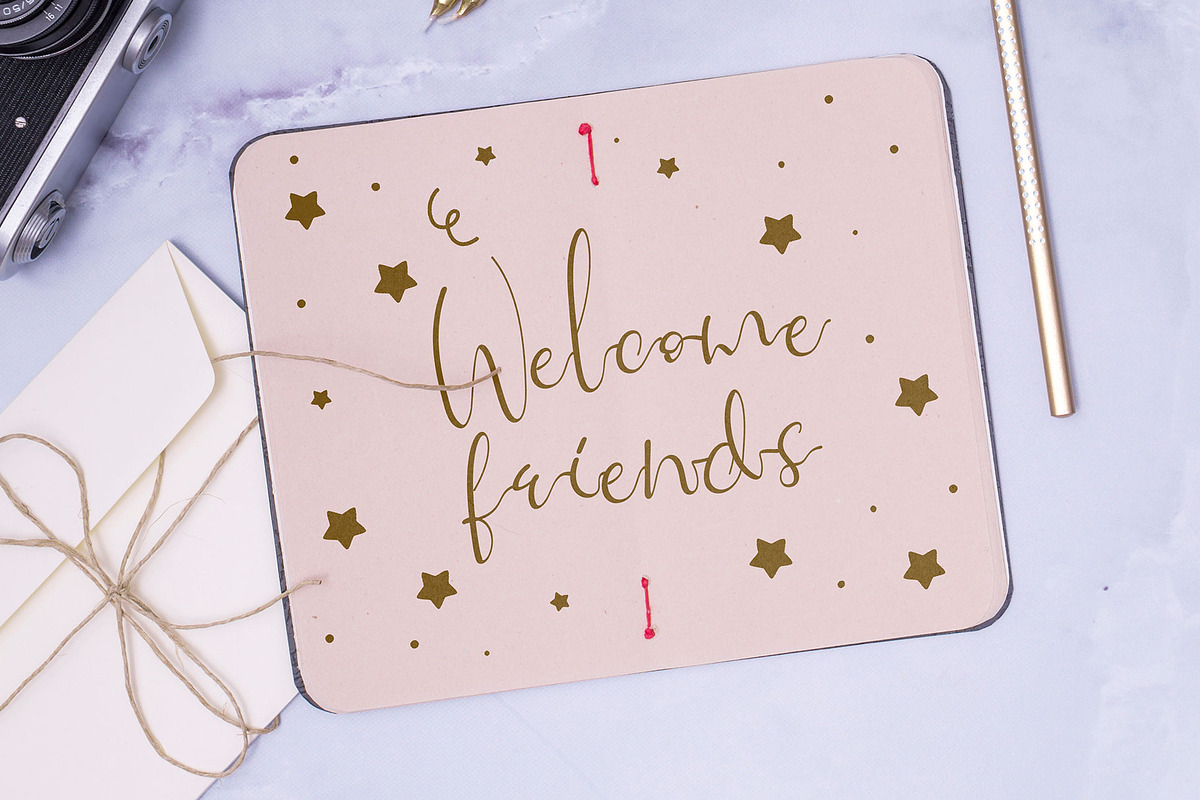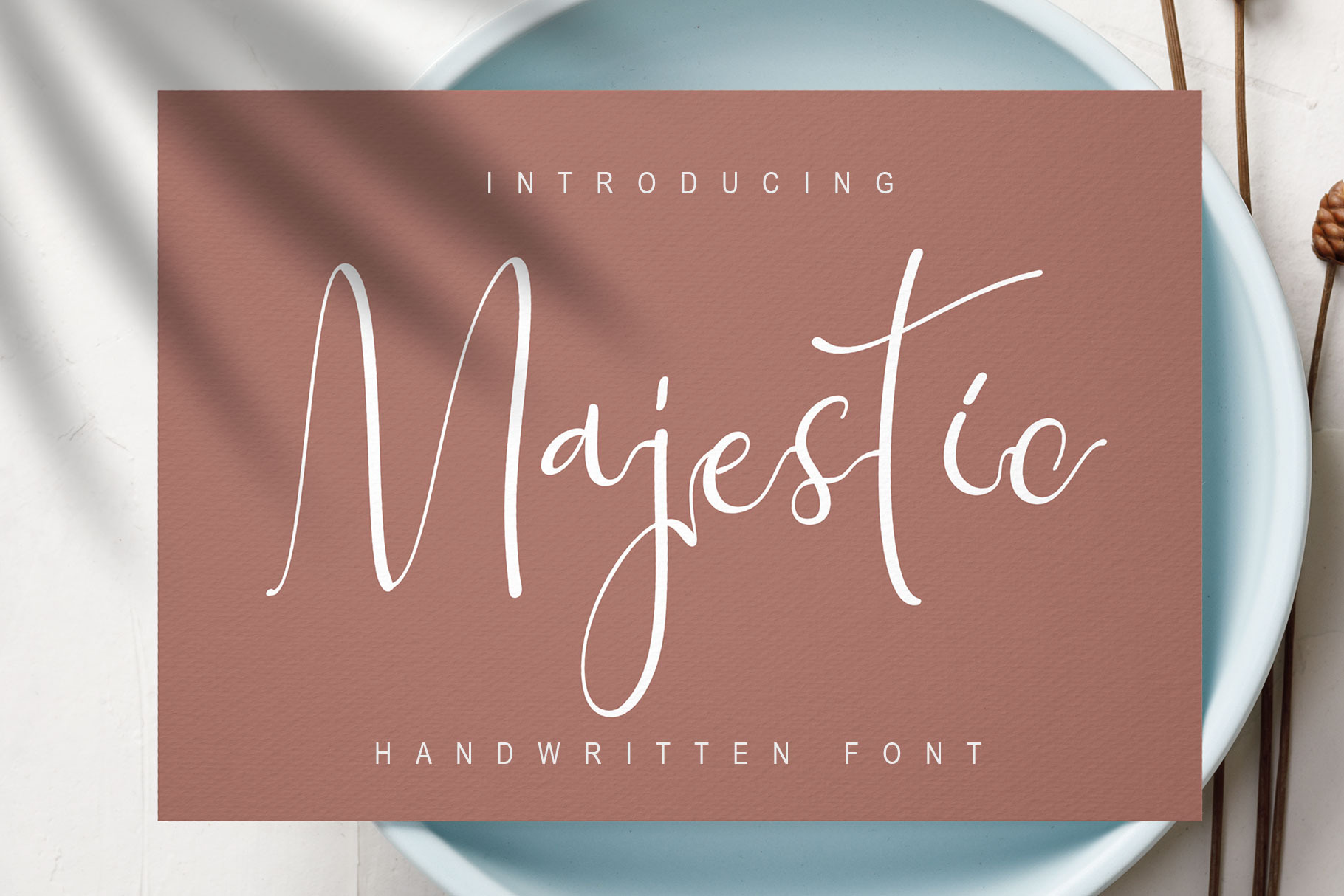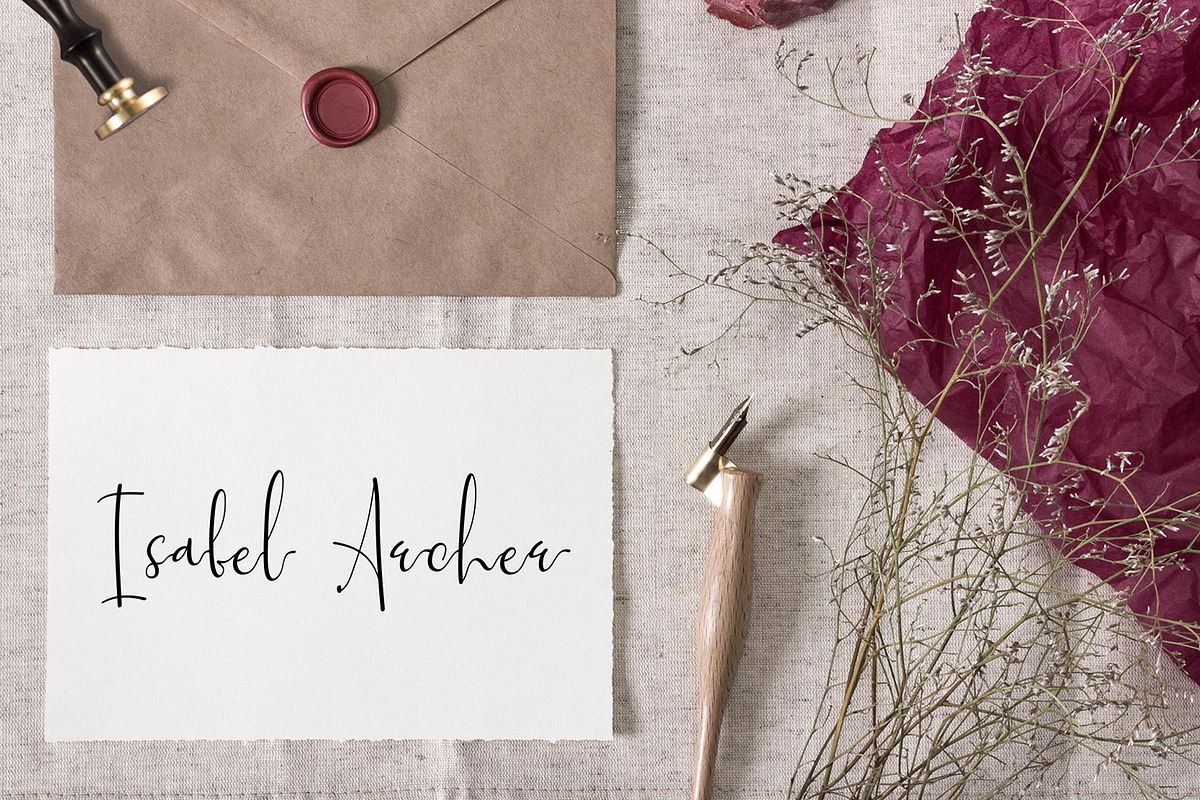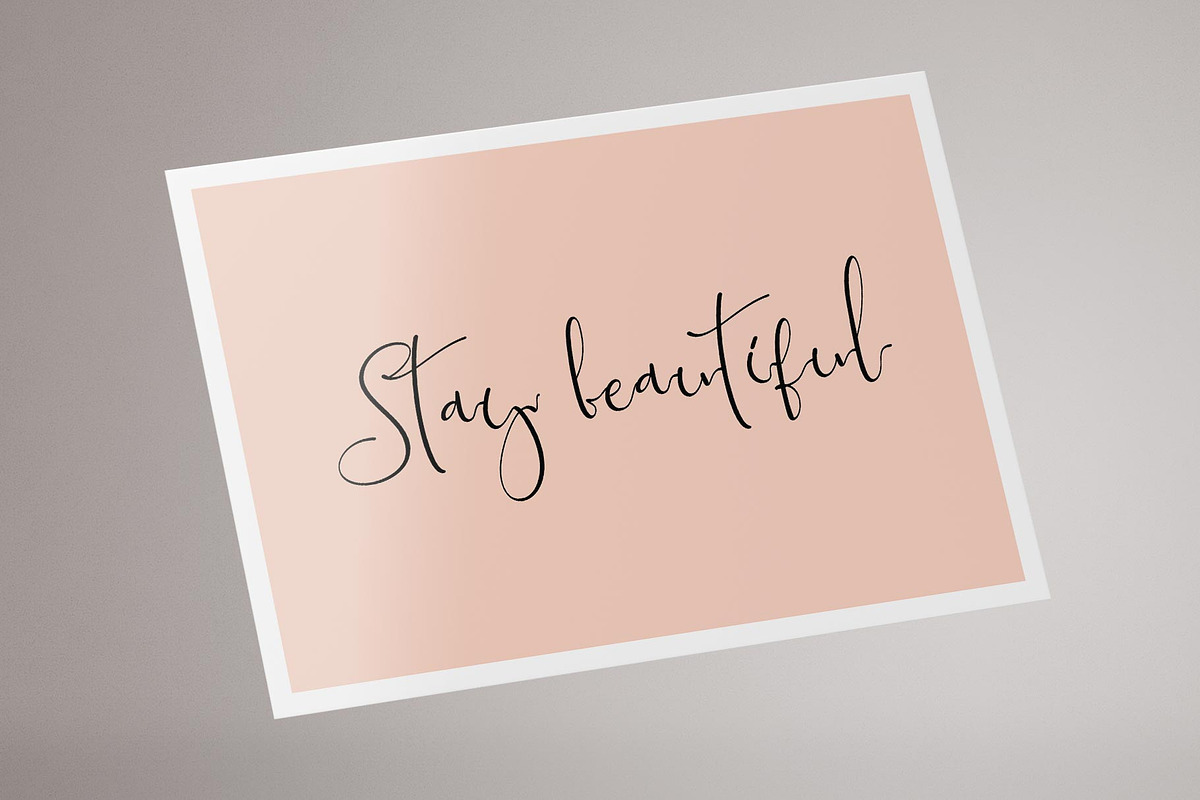
Majestic - Handwritten Script Font
Hello there to Everyone! I would like to introduce you A Handwritten Font Majestic .It has a new organic style which is great for many purposes including branding purposes, wedding cards , design logos & also it's absolutely possible to use it for your beauty items. For you, to have the impression that your writing on paper/tab , i've decided to add lowercase alternatives and some ligatures, including the start and the end of the swash. And if you'd like to test the words in this font, it's so simple..You'll just need to type the box below and it'll give you an idea what it looks like. Please feel free to message me if you have any problem or question. Best regards!